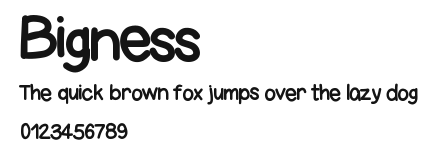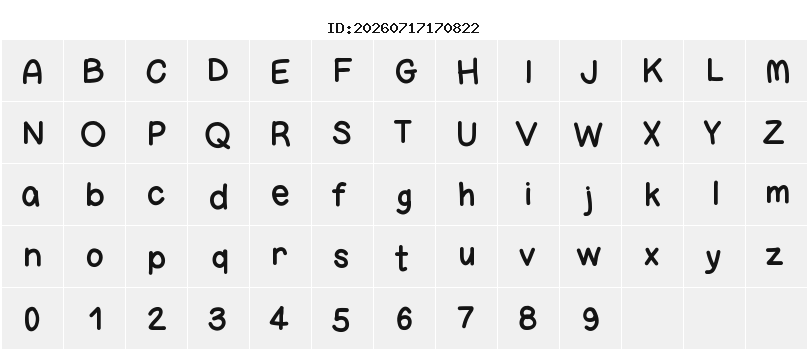
• Font Name: Bigness
• Full Font Name: Bigness
About Bigness.ttf
Bigness.ttf is a modern, elegant sans-serif font designed for ultimate readability and visual harmony. Perfect for branding, headlines, web design, and print materials.